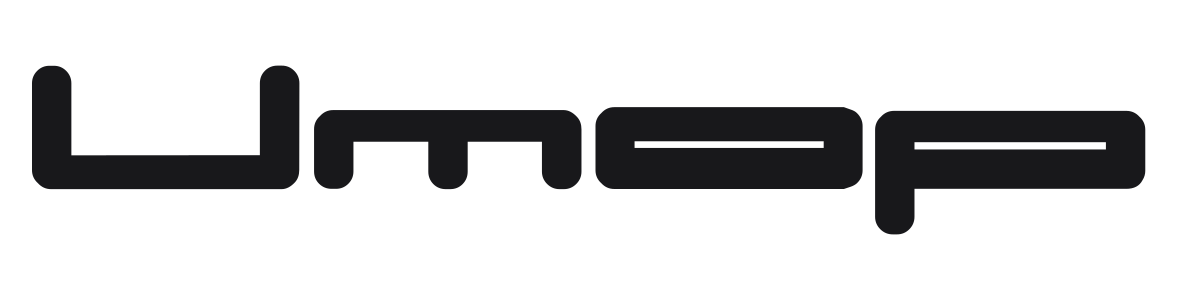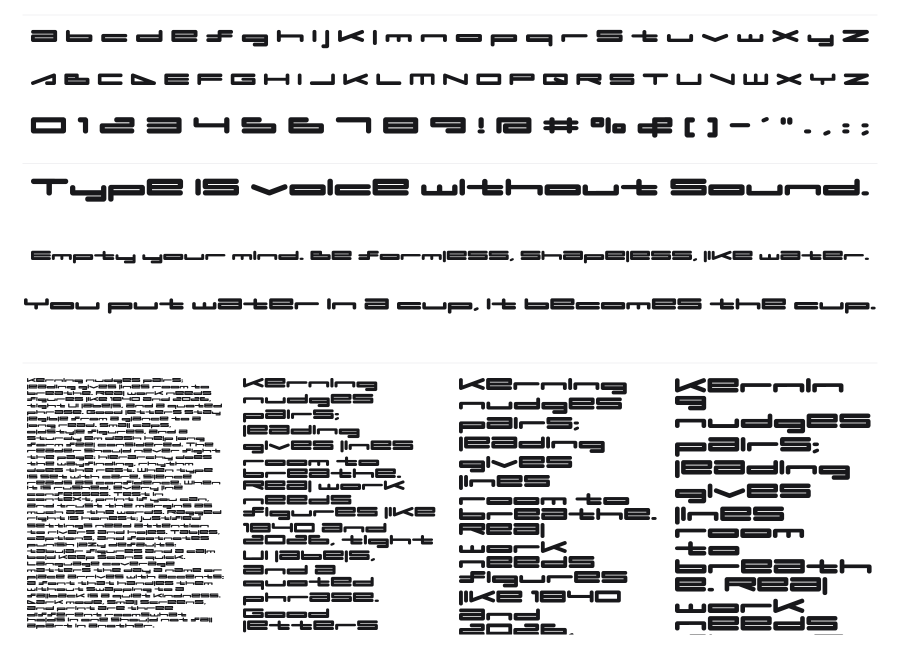
Umop
Umop is a wide, bold geometric display face from Parallax with blocky letterforms and a strong horizontal emphasis. The squared-off construction and heavy strokes give it a futuristic, tech-forward personality that works naturally in headlines, posters, and digital interfaces where presence matters. It reads as confident and modern, the kind of face that anchors a layout without needing anything else around it.